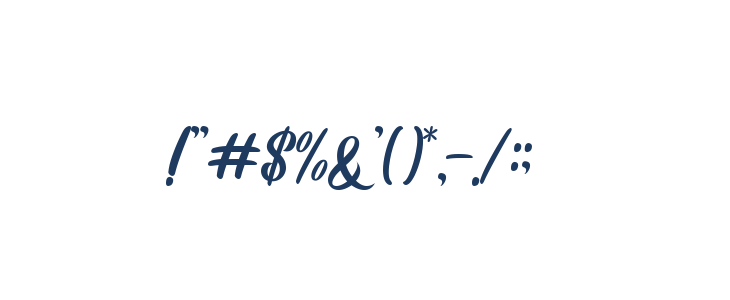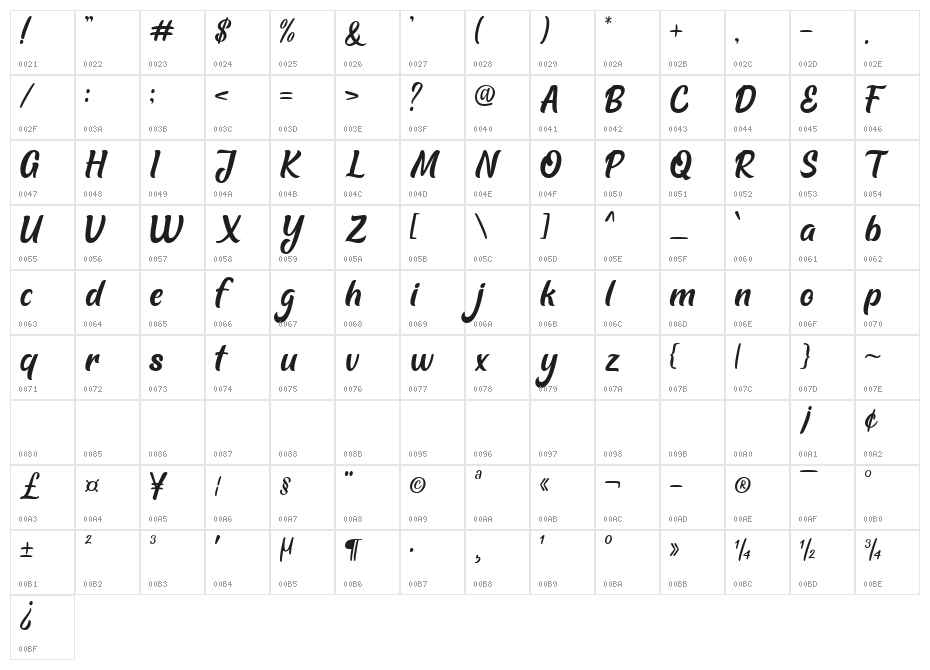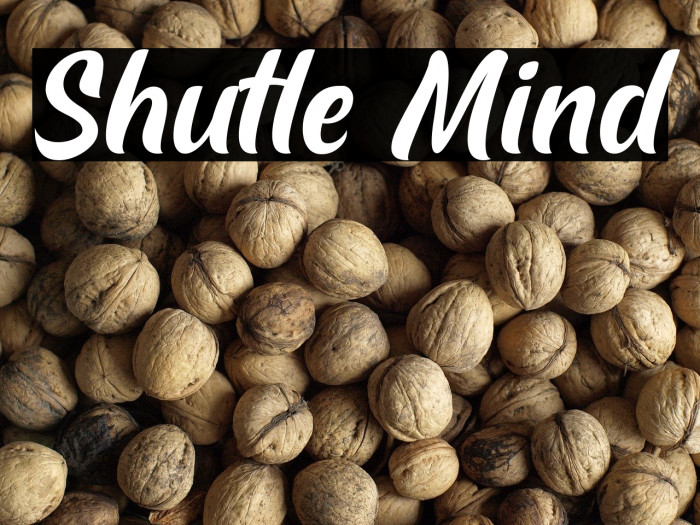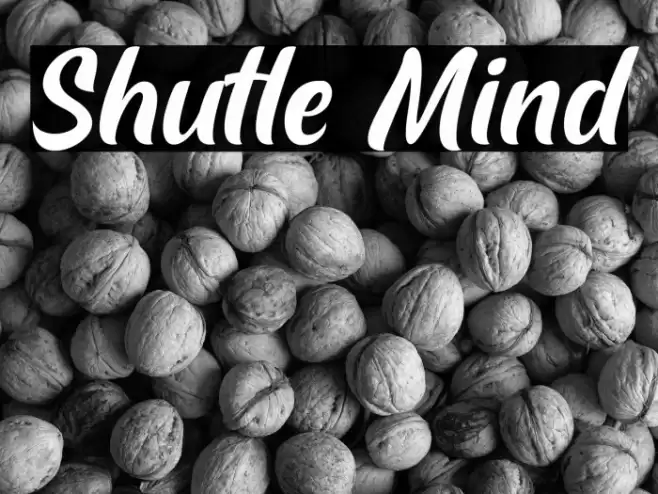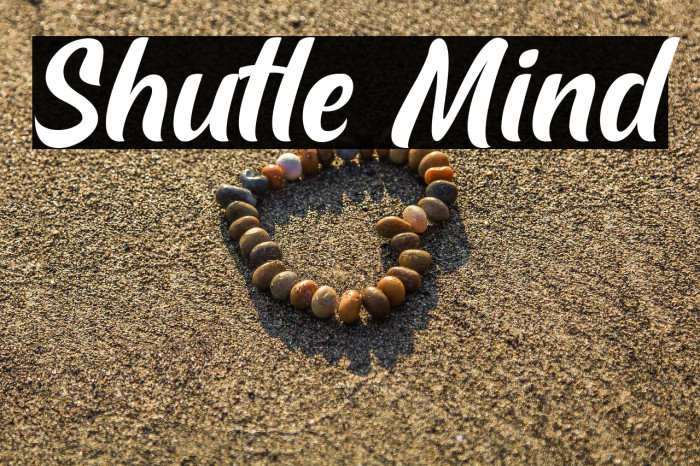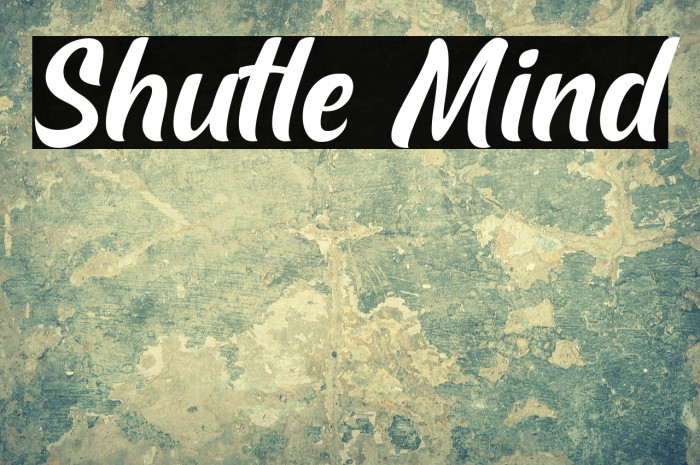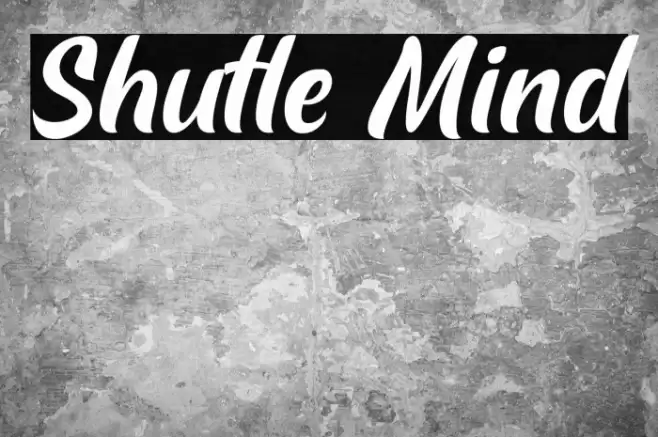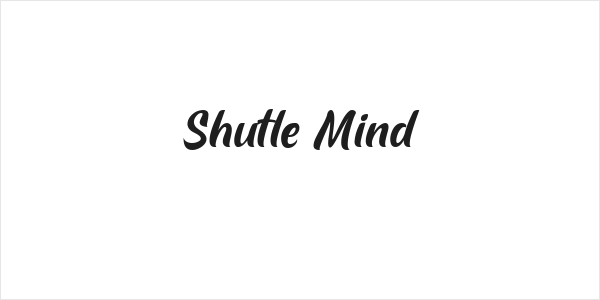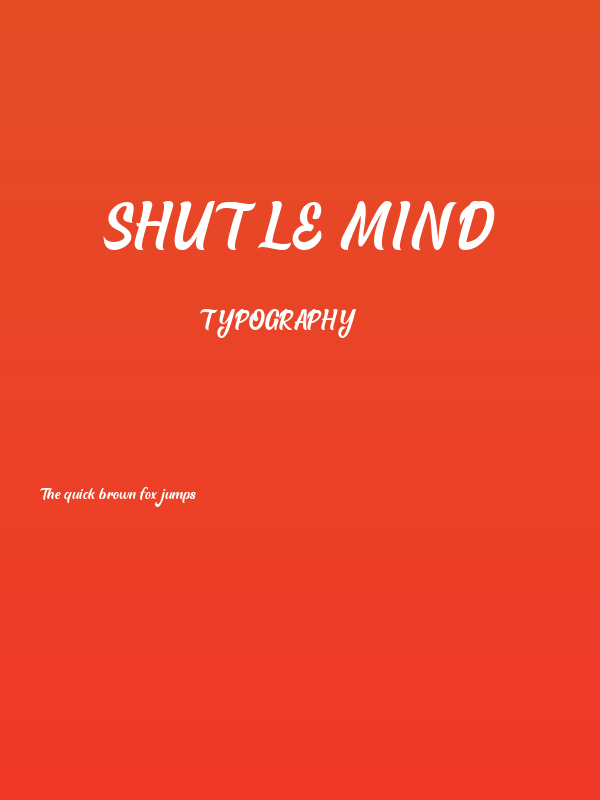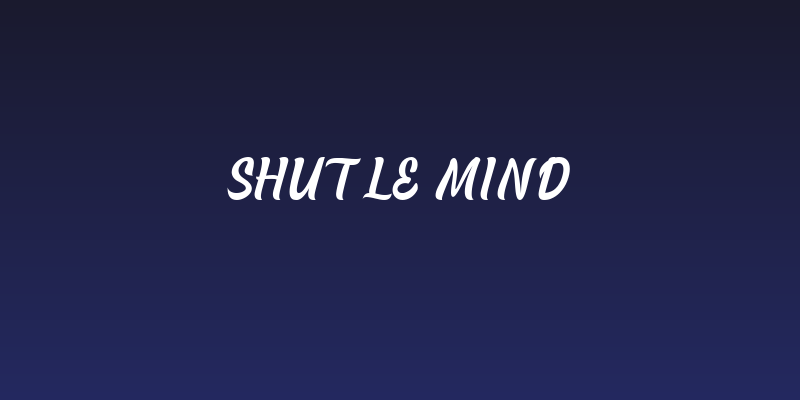
Shutle Mind Font
Shutle Mind Description
This font features a bold and dynamic script style with a flowing, cursive appearance. The letters are interconnected, creating a sense of movement and fluidity. The uppercase characters are slightly more formal, while the lowercase letters maintain a casual and approachable feel. The strokes are thick and consistent, providing a strong visual impact. The font includes a full set of uppercase and lowercase letters, numerals, and a variety of punctuation marks, making it versatile for different uses. Its bold nature makes it stand out, while the script style adds a touch of elegance and personality.
Use CaseLogos, Invitations, Social Media Graphics
Proposed ProjectsIdeal for branding projects, logo design, invitations, and social media graphics where a personal and elegant touch is desired.